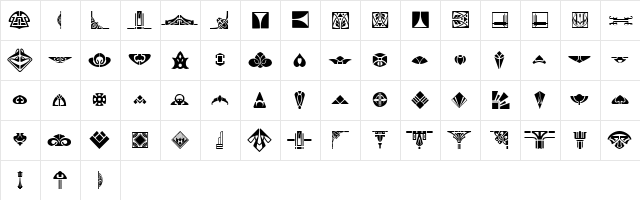
Novo Deco Ornaments Regular
Design Context for Novo Deco Ornaments Typeface
Novo Deco Ornaments brings ornamental detail and strong personality to headlines and identities, where visual impact matters more than quiet functionality.
Font Pairing: Pair with a clean neutral sans-serif for body copy to let Novo Deco Ornaments's character lead without overwhelming the composition.
Pro Tip: Treat Novo Deco Ornaments as the centrepiece of your typographic hierarchy. One strong heading set in a decorative face can carry an entire layout.